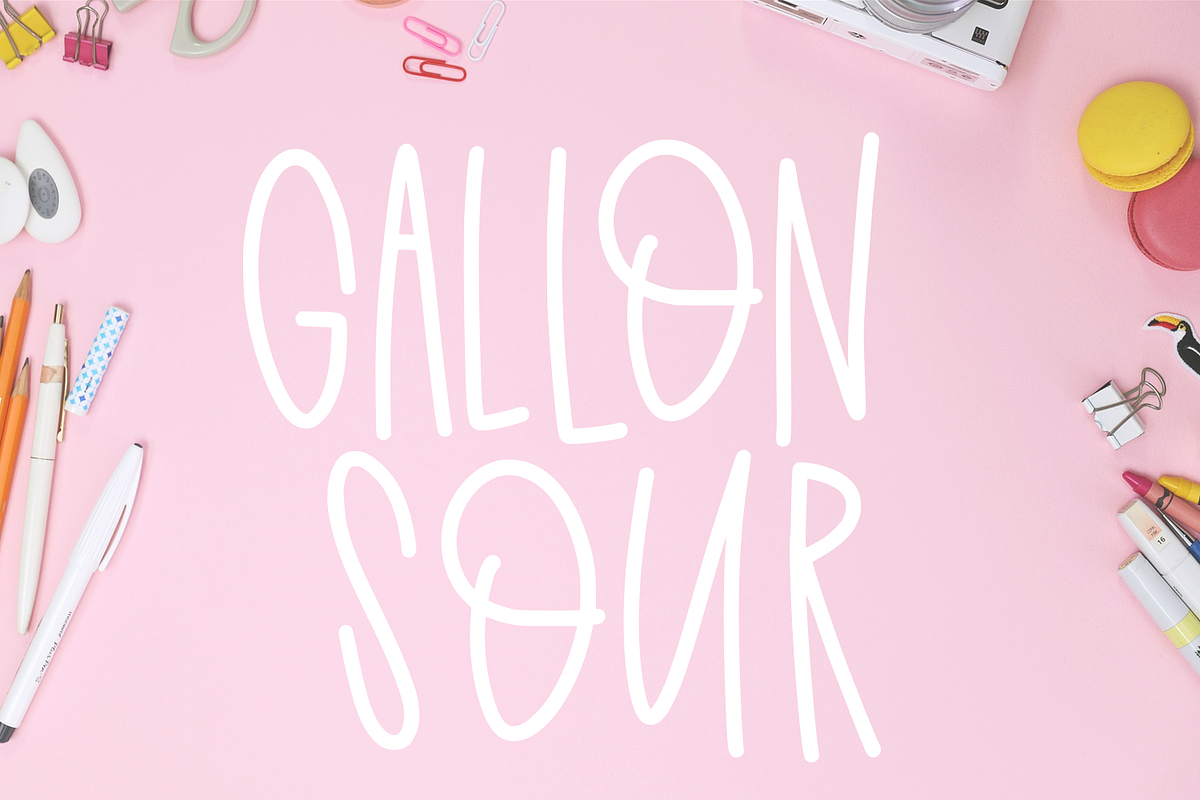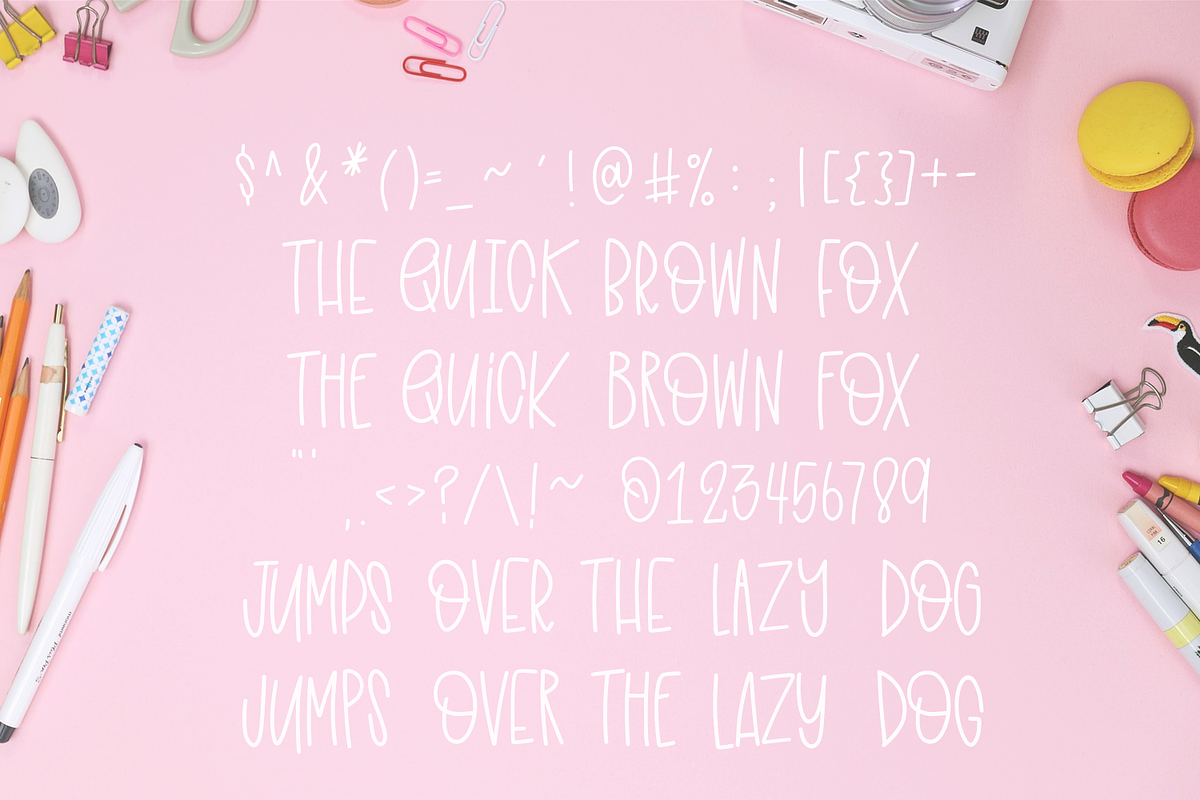
Gallon Sour - Handwritten Font
Gallon Sour Handwritten Font by CraftyLittleNodes is a font selected for branding, posters, packaging, typography.
Why Gallon Sour - Handwritten Font is worth a look
Gallon Sour - Handwritten Font by CraftyLittleNodes fits naturally into Branding, posters, packaging, typography.